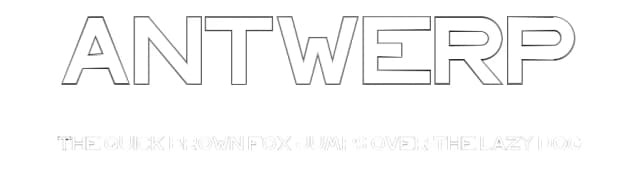
About LongTime Font
LongTime is a sans-serif font designed by Richard. It includes 149 glyphs, a medium weight, TTF (TrueType) format, and 124 languages. LongTime is free to download; check the license details on this page before commercial use. Sans-serif fonts like LongTime work best for clean body text, user interfaces, branding, and modern layouts.
LongTime Font is a versatile sans-serif font that works for both headings and body text. Pair it with a contrasting serif or slab serif font to add visual interest and a clear distinction between titles and body copy.
LongTime Font